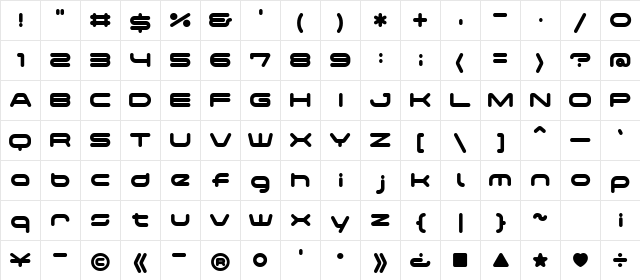
TMExtendedNormalAl Regular Font Preview
TMExtendedNormalAl Regular
TMExtendedNormalAl Regular Font Details
Design Context for TMExtendedNormalAl Typeface
TMExtendedNormalAl offers clean, dependable letterforms without strong stylistic allegiance, making it a practical choice for designers who need flexibility.
Pro Tip: Use TMExtendedNormalAl in both headline and body roles to test its range before committing to a single application.